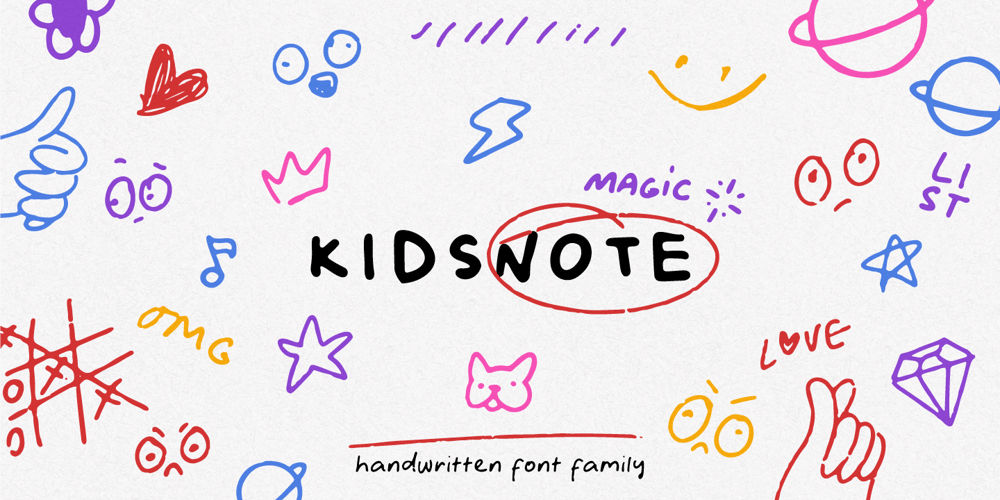
Kidsnote Font Family was designed by Lauritta Ivanova and published by Luxfont. Kidsnote contains 11 styles and family package options. Meet KIDSNOTE, where each letter is like a letter in the margins of the page, written with a ballpoint pen. This dissimilar family of different fonts is framed by the atmosphere of handwritten notes.From block and cursive letters to underlining and mini-doodles, every typeface captures the feeling of writing with a real pen. Like the pages of a notebook, written in small handwriting.Features:- Extras- Kerningld.luxfont@gmail.com